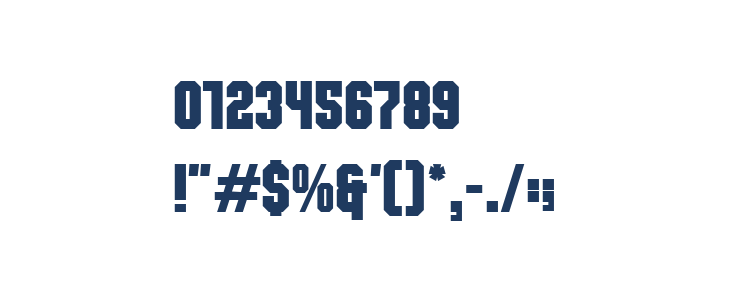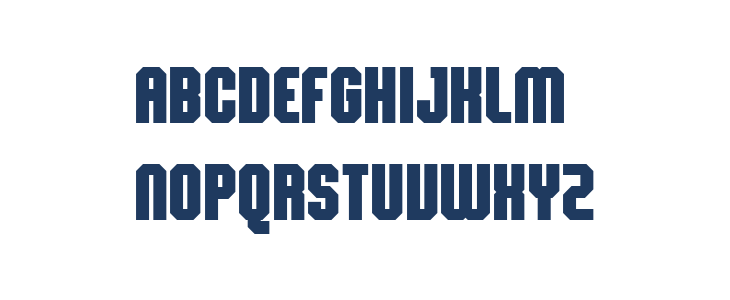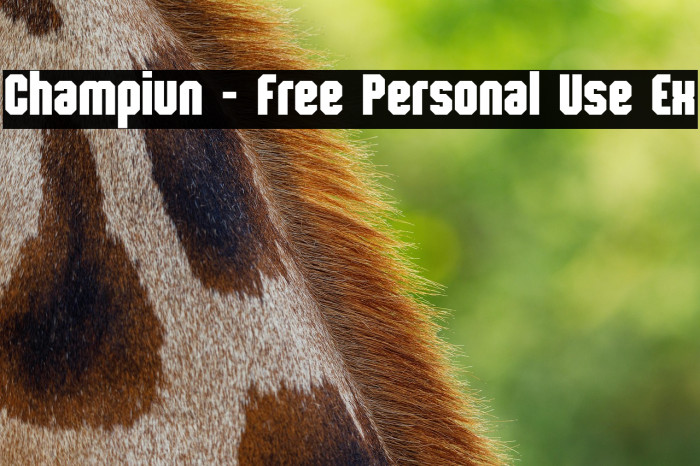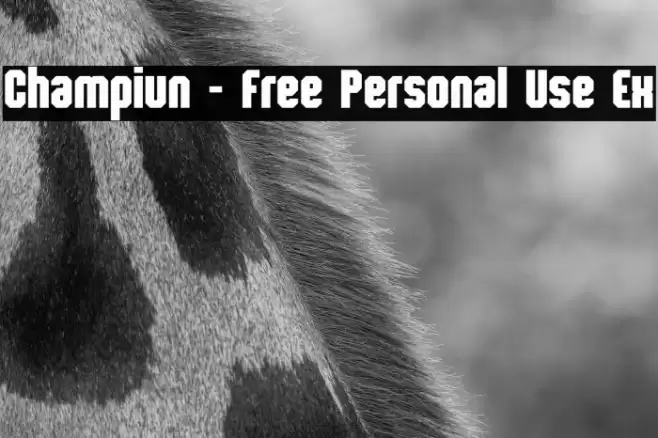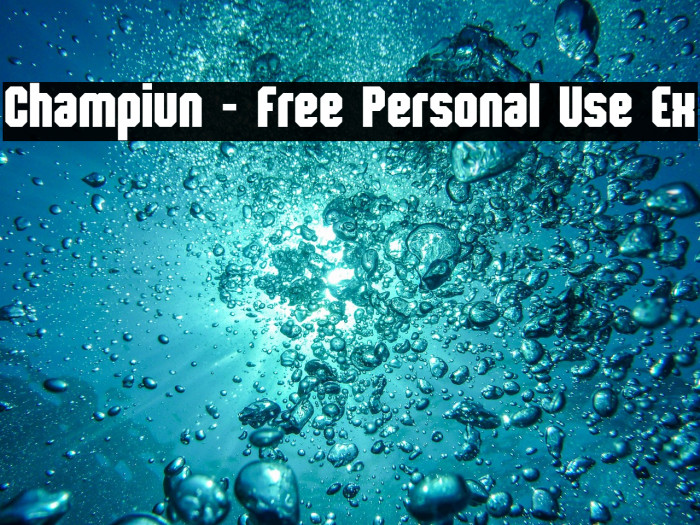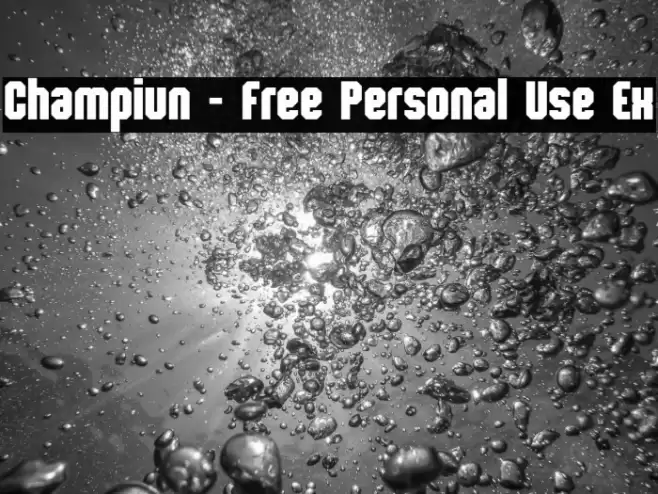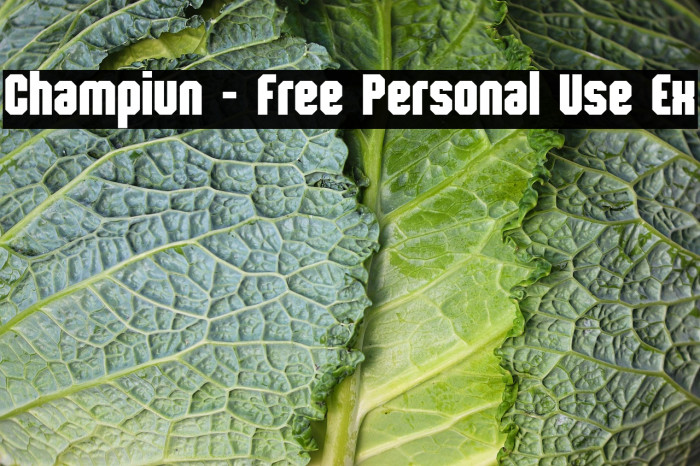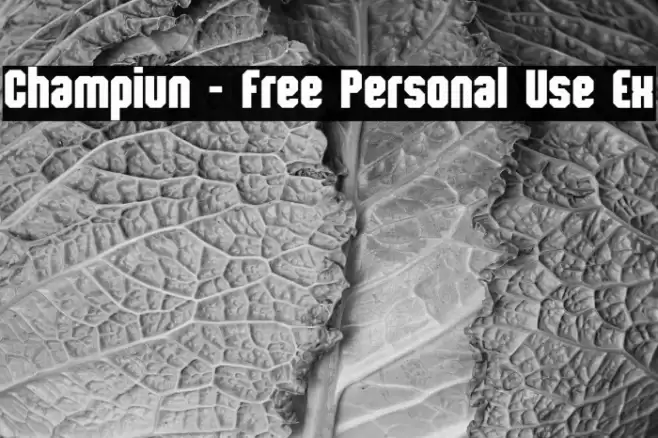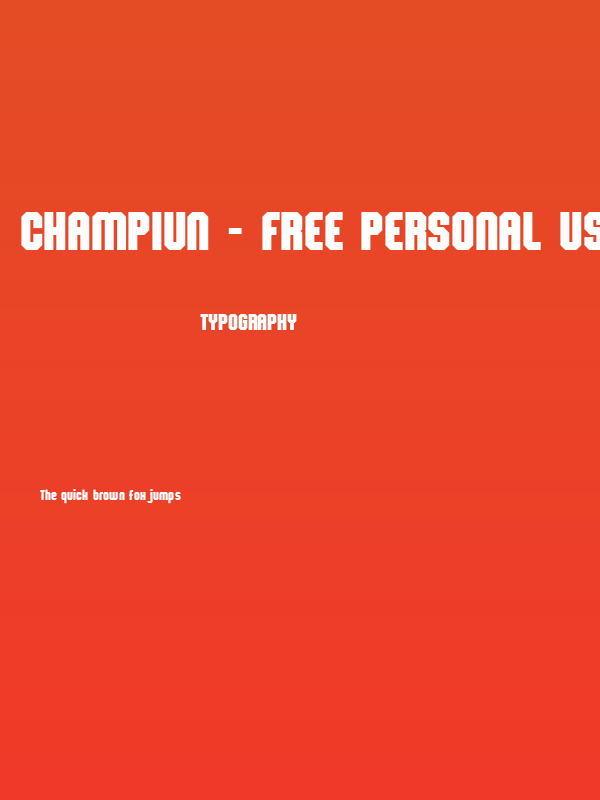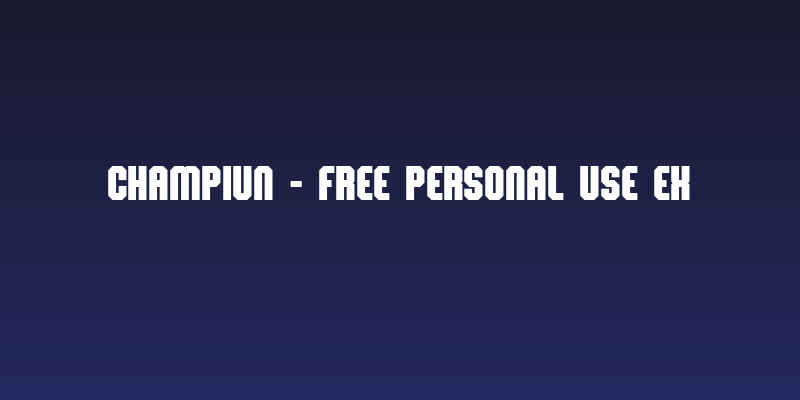
Champiun - Free Personal Use Ex Font
Champiun - Free Personal Use Ex Description
Bold, blocky, geometric sans-serif font with a strong, industrial appearance.
| Overall Style | Modern, Industrial, Bold |
| Use Case | Headlines, Posters, Logos, Branding |